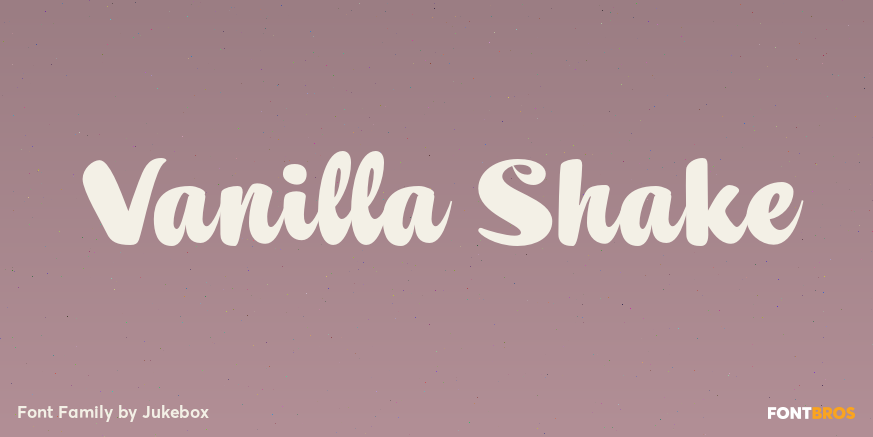
Vanilla Shake
About Vanilla Shake
Vanilla Shake is the fifth font in the collection based on the lettering of late sign painter Mike Stevens. A heavy upright and casual script font, Vanilla Shake is sweet and smooth just like its namesake! Perfect for a variety of uses, the typeface gives…